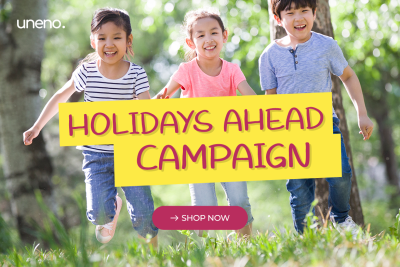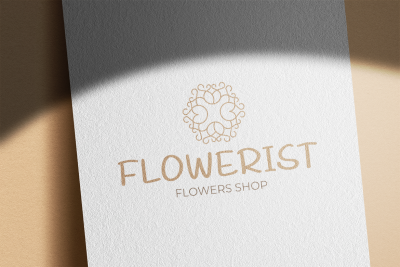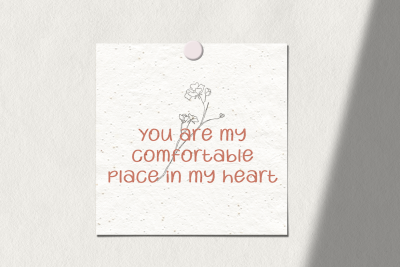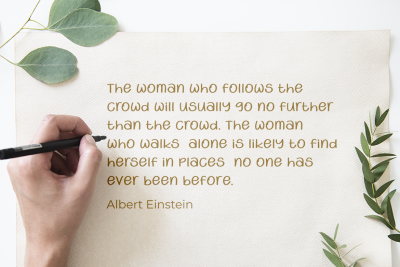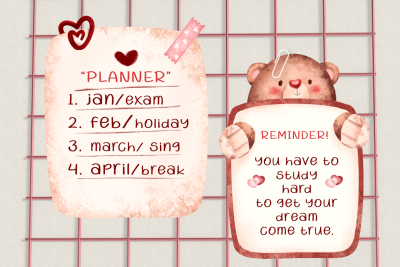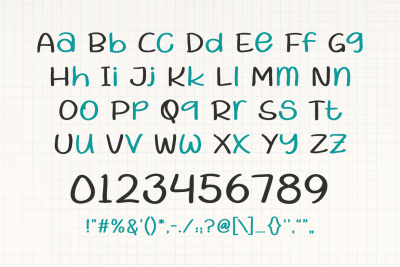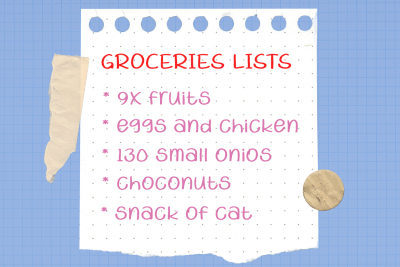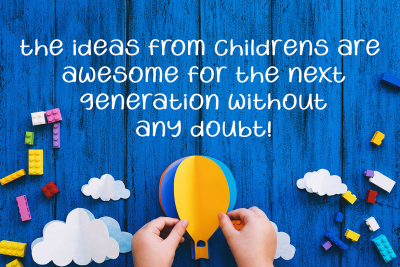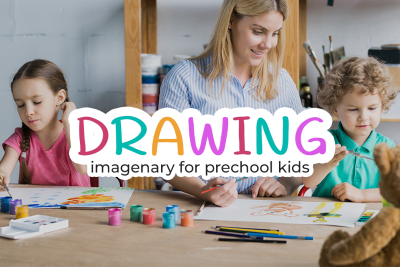
Handwriting Font The Journal is a charming and casual that adds a personal touch to designs. Inspired by handwritten notes, it seamlessly blends playfulness with readability. Its slightly irregular strokes mimic authentic handwriting, thus creating a warm and approachable feel. Whether for a journal cover, personal blog, or invitation card, The Journal effectively brings personality and sincerity.
Designed with smooth curves and a natural pen-stroke effect, The Journal ensures a relaxed yet professional look. It truly captures the essence of handwritten text while remaining highly legible. Moreover, its simplicity makes it highly adaptable, working well with both modern and rustic themes. Furthermore, the organic feel of The Journal makes it ideal for branding, social media posts, or any project needing a friendly and engaging touch.
The Journal is perfect for bloggers, influencers, and content creators who want a handwritten feel for their websites and social media graphics. Not only does it provide a casual yet stylish design, but it also enhances authenticity in personal stories, lifestyle blogs, and DIY projects.
Graphic designers and branding experts can effectively use The Journal to create memorable logos, packaging, and brand materials. Its handcrafted charm, therefore, suits boutique shops, artisanal brands, and creative entrepreneurs.
For educators and students, The Journal makes notes, posters, and learning materials more engaging. Consequently, its friendly look improves readability, helping maintain interest and attention.
For wedding invitations, greeting cards, or event flyers, The Journal adds a heartfelt touch. In addition, its handwritten elegance creates a warm and inviting aesthetic for personal and formal events.
If you sell handmade products or run a small business, The Journal is ideal for product labels, thank-you cards, and promotional materials. Additionally, its handwritten look enhances the charm of craft, eco-friendly, and homemade brands.
The Journal handwriting font is perfect for those who want creativity with a natural, personal touch. Whether for professional or personal projects, its versatility ensures that words stand out with both style and warmth.